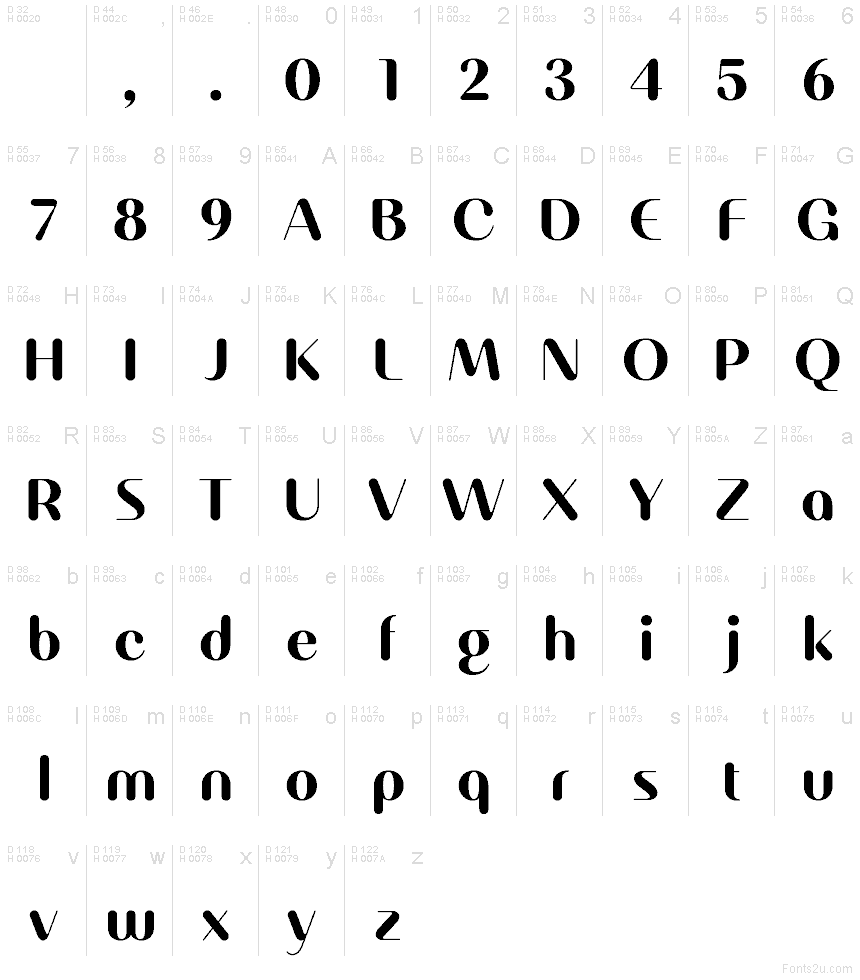
Nearo Rounded Bold
Nearo Rounded Bold font by Digitype Studio is a free retro rounded sans serif typeface. Its chunky, pill-shaped strokes and velvety corners create a buoyant rhythm that feels both 70s and freshly modern. The Nearo Rounded family’s bold cut has sculpted in-letter notches that keep heavy forms airy, so headlines thump without turning into ink blots.
Using Nearo Rounded Bold, your titles land with friendly confidence—great for logos, packaging, posters, menus, event banners, app splash screens, and social media graphics. The steady spacing keeps lines smooth and legible at medium sizes while still popping big. Pair this free font with a clean grotesk or the regular weight from the Nearo Rounded family for body copy, and tighten tracking slightly for punchy headlines.